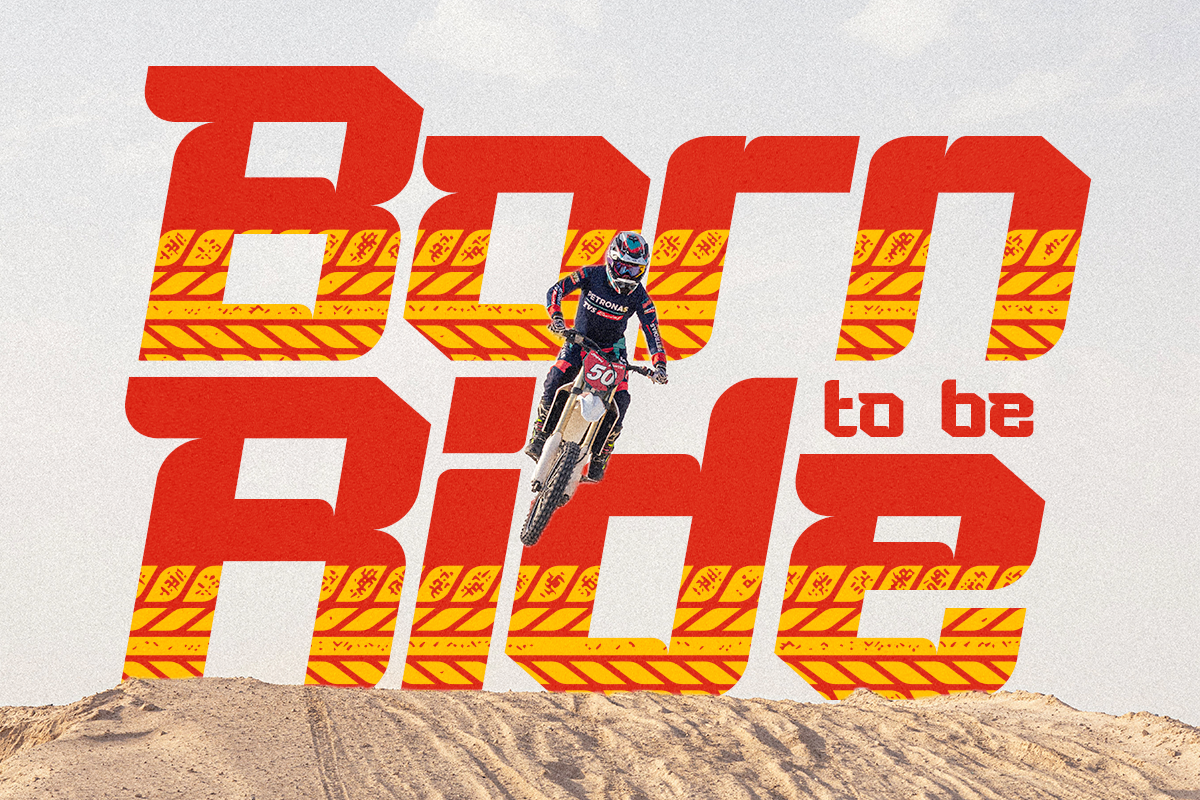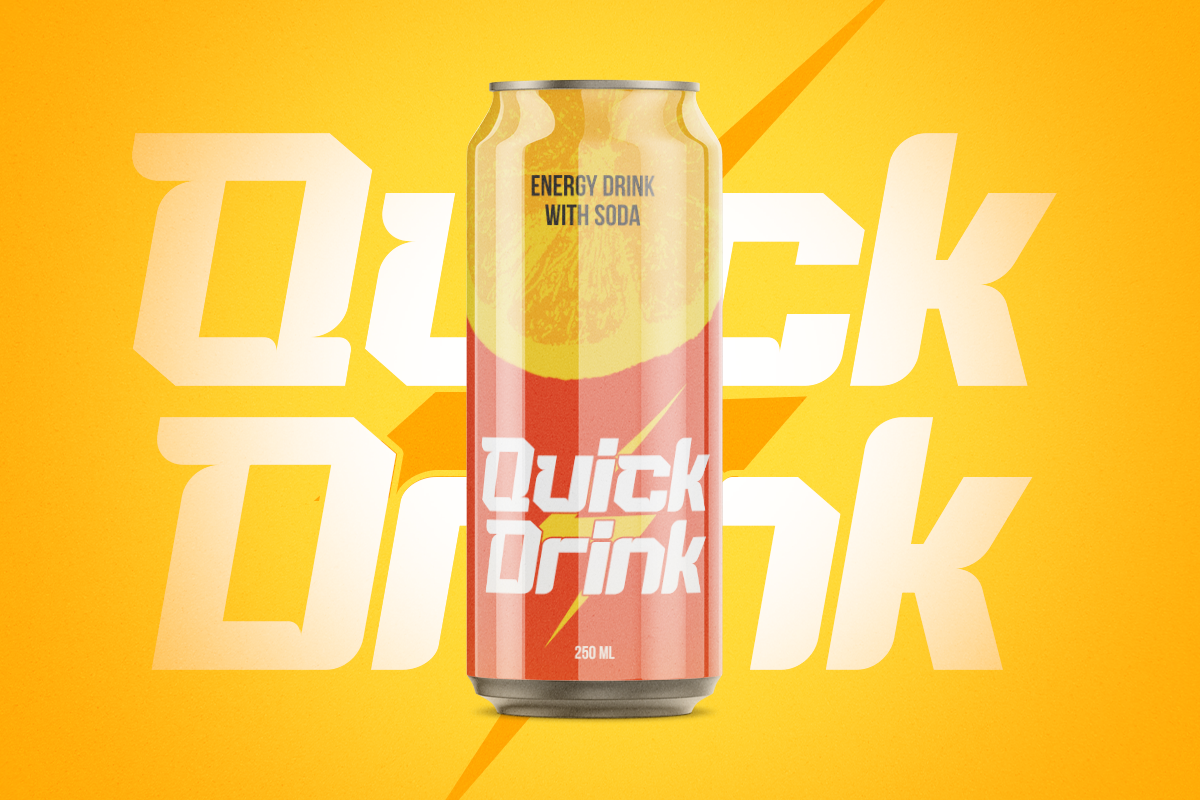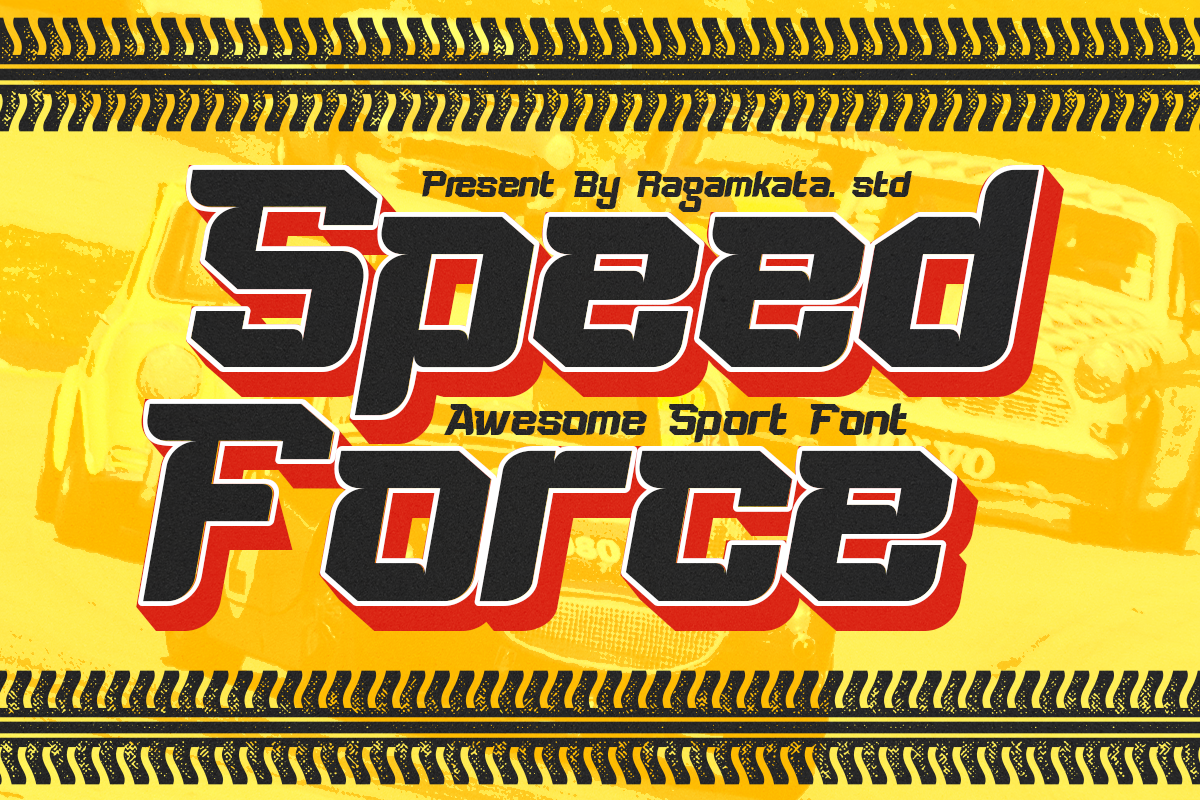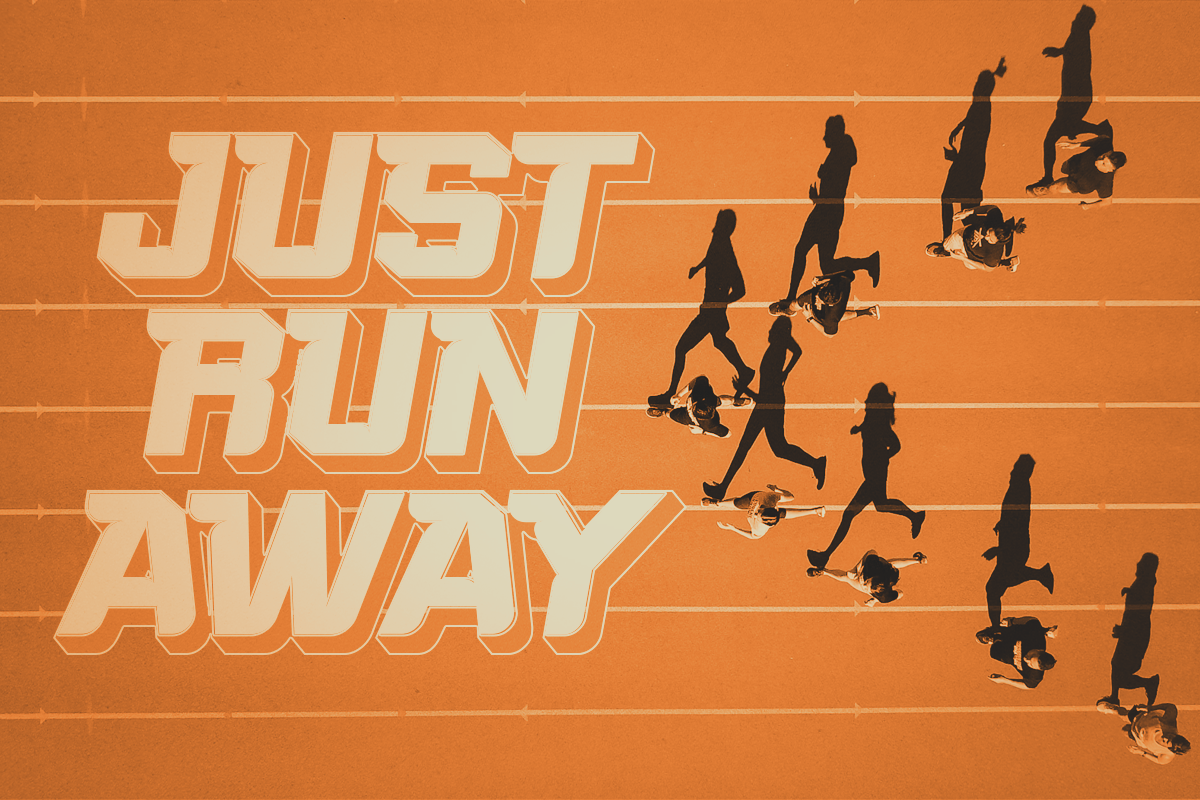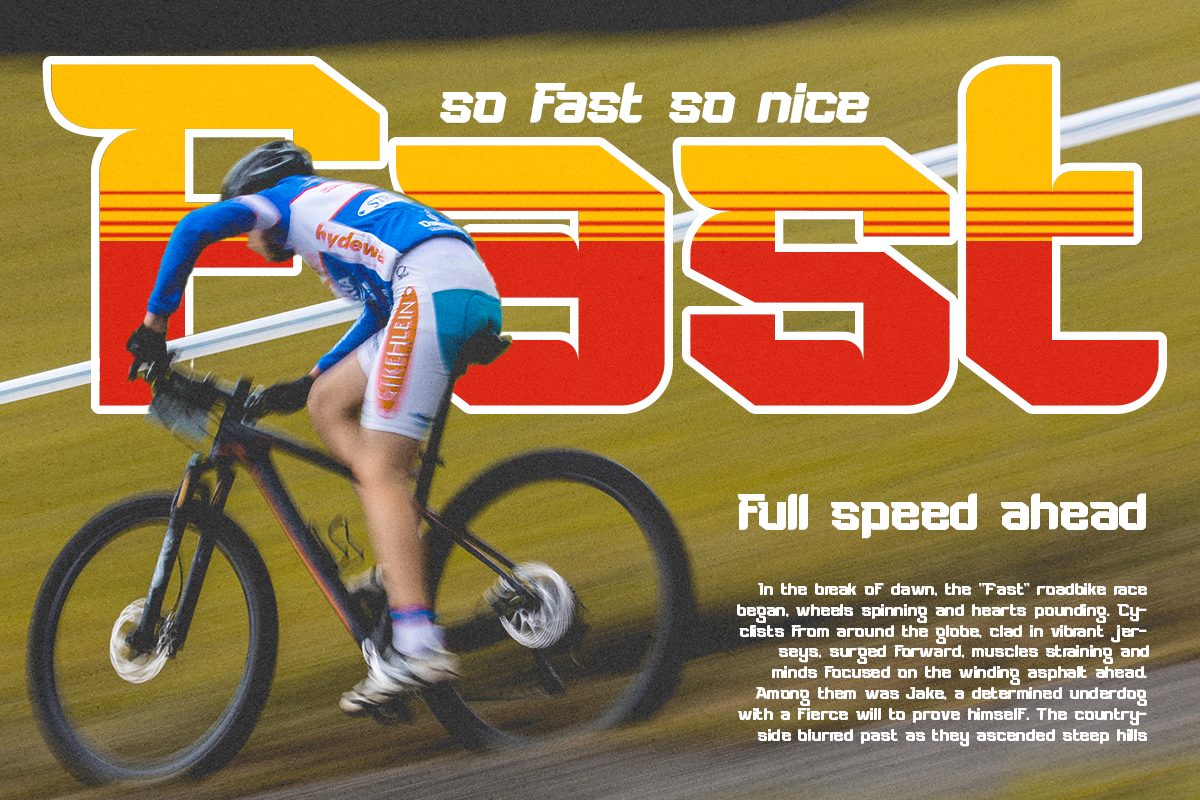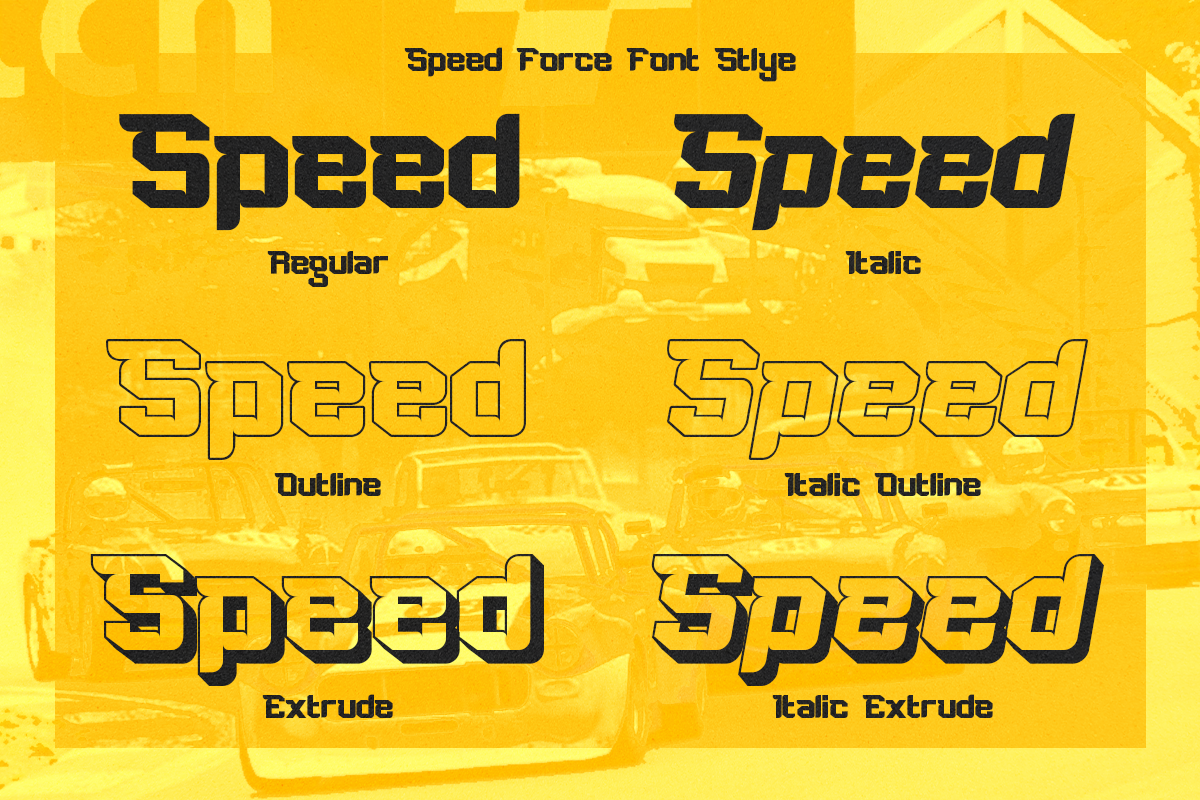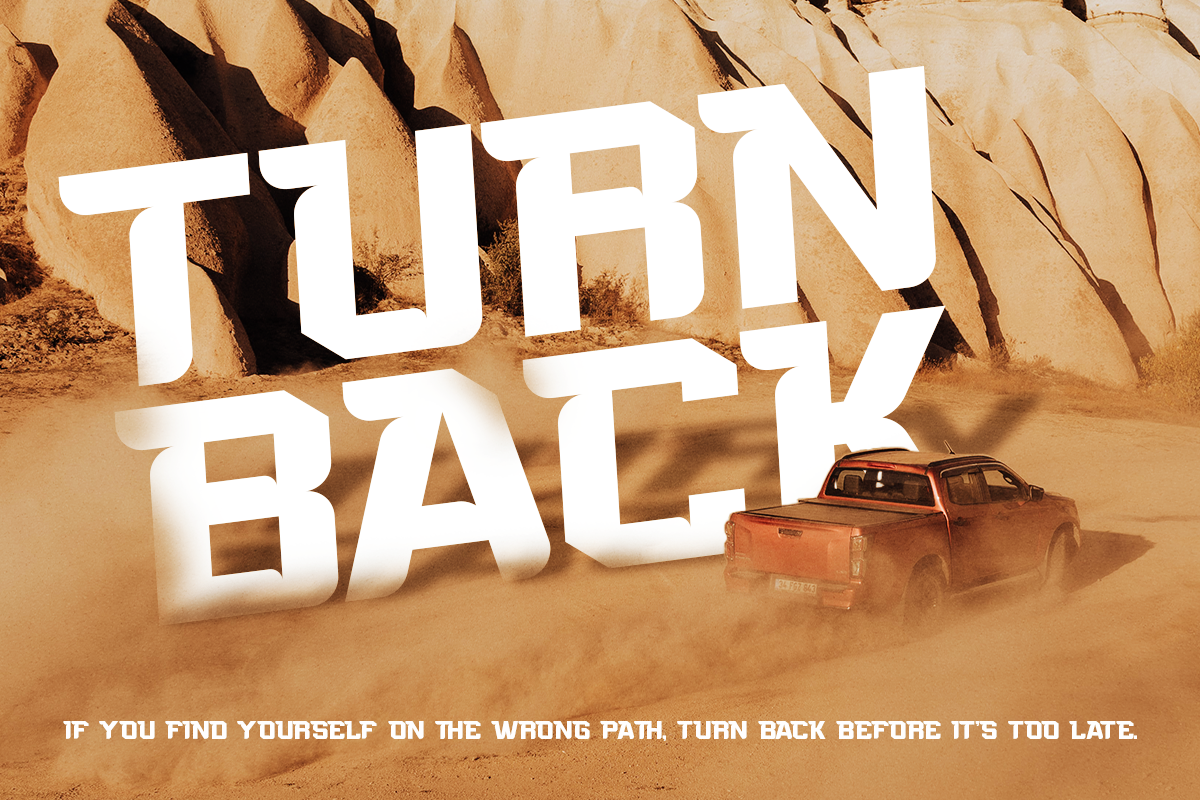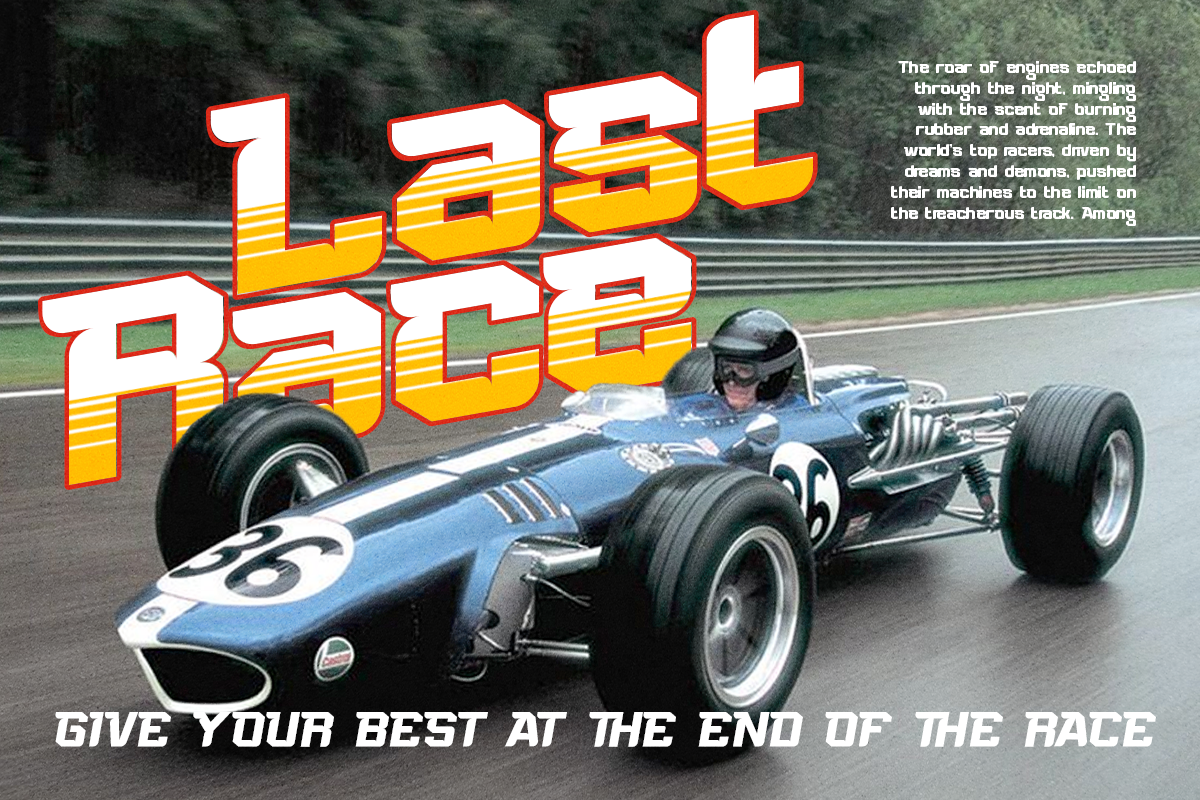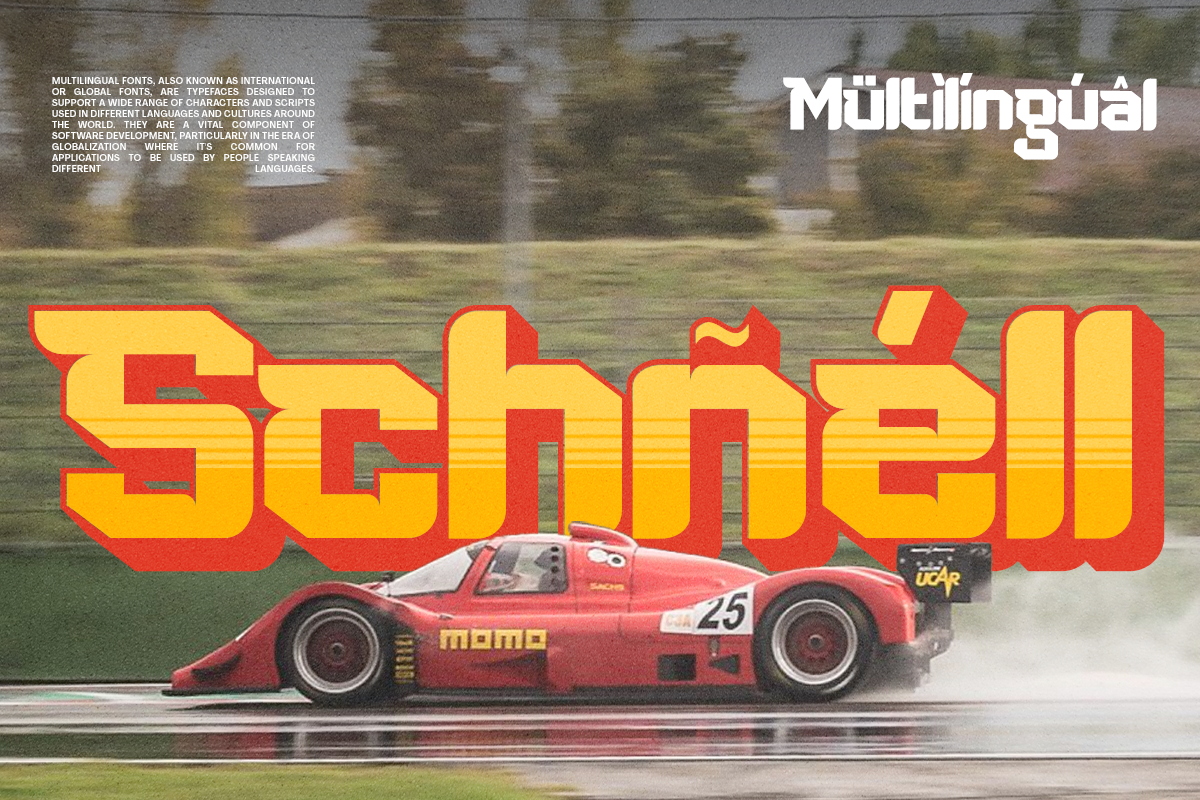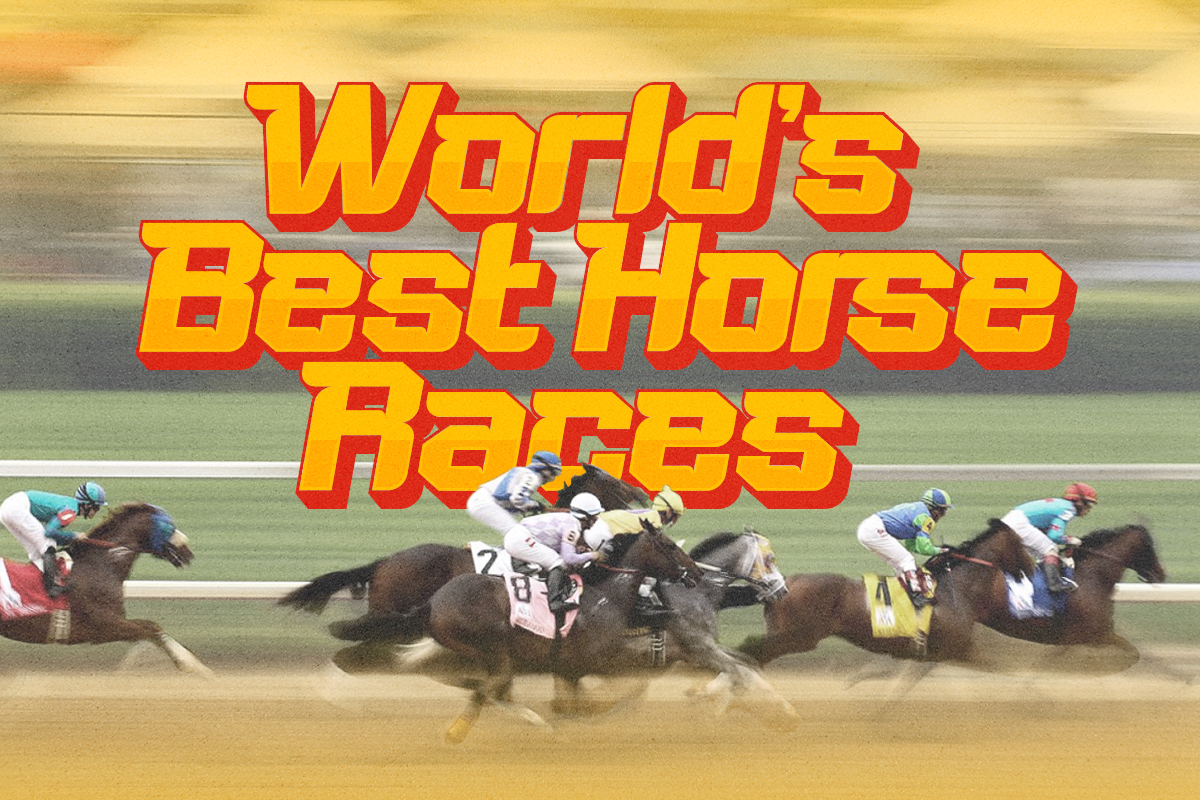
Speed Force - Sport Font
Introducing *8Speed Force**, an awesome sport font crafted to infuse your projects with energy and motion. This bold typeface, with its modern cutouts, captures the essence of speed and power. Perfect for sports headlines, racing logos, automotive games, and any text that needs a vibrant, fast-paced feel, Speed Force ensures your designs stand out with a commanding presence.
Speed Force comes with 6 styles: Regular, Italic, Outline, Extrude, Italic Outline, and Italic Extrude. Each style adds a unique flair, allowing you to create dynamic and impactful visuals.
Whether you're crafting magazine headlines, logos, or game graphics, Speed Force delivers readability, strength, and a touch of modern flair, making your designs unforgettable.
- Six styles: Regular, Italic, Outline, Extrude, Italic Outline, and Italic Extrude
- Uppercse & Lowercase
Enhance your sports-themed designs with Speed Force, the ultimate font for bold and impactful typography.